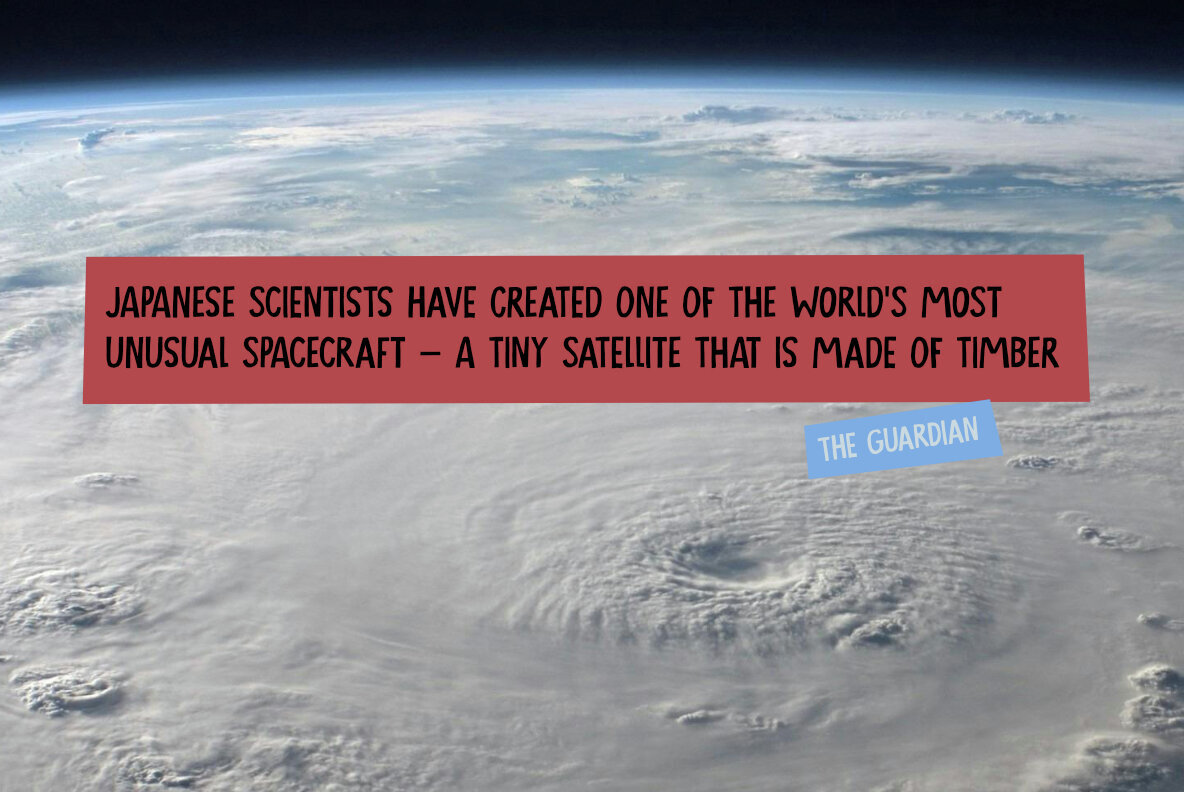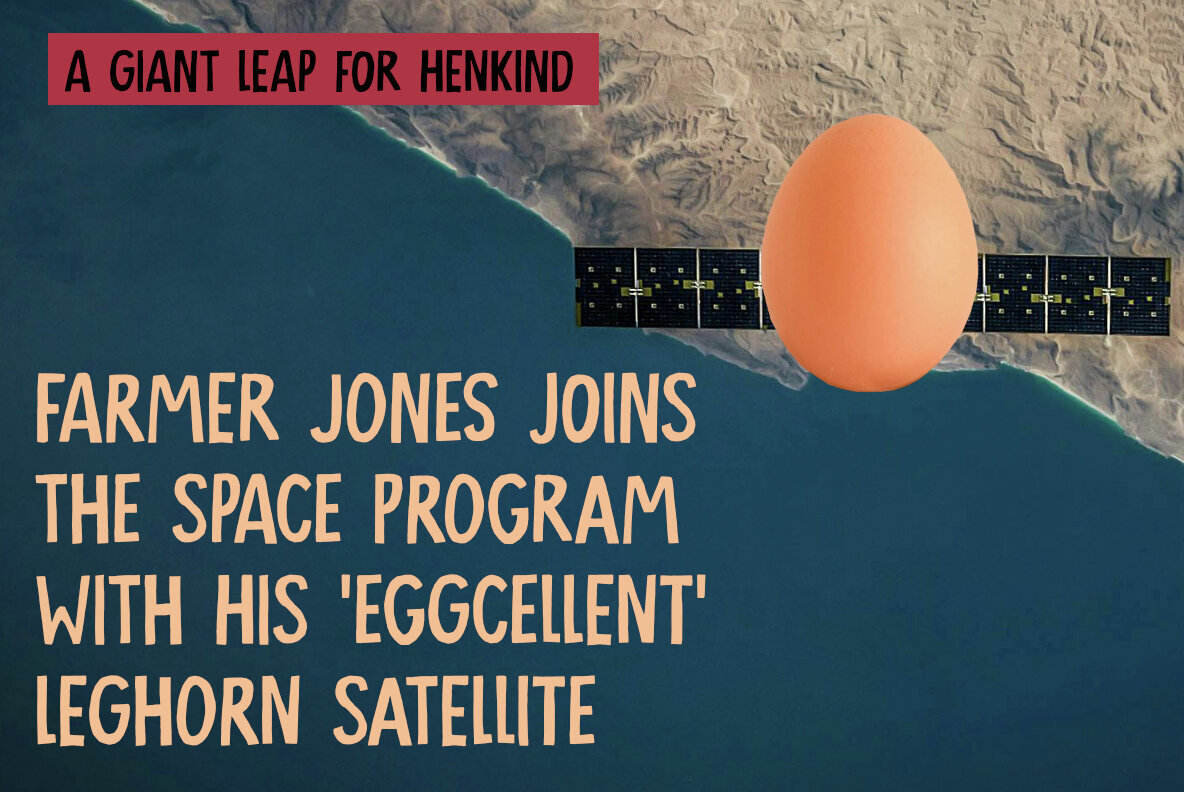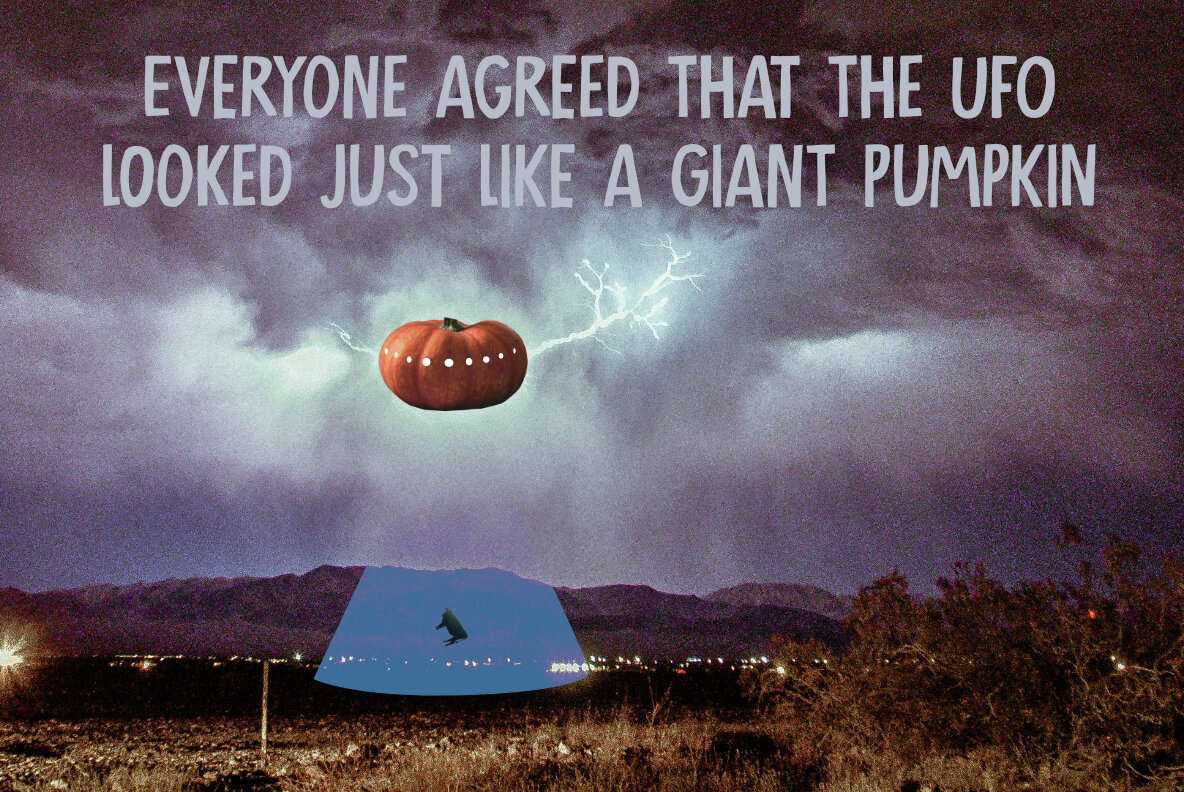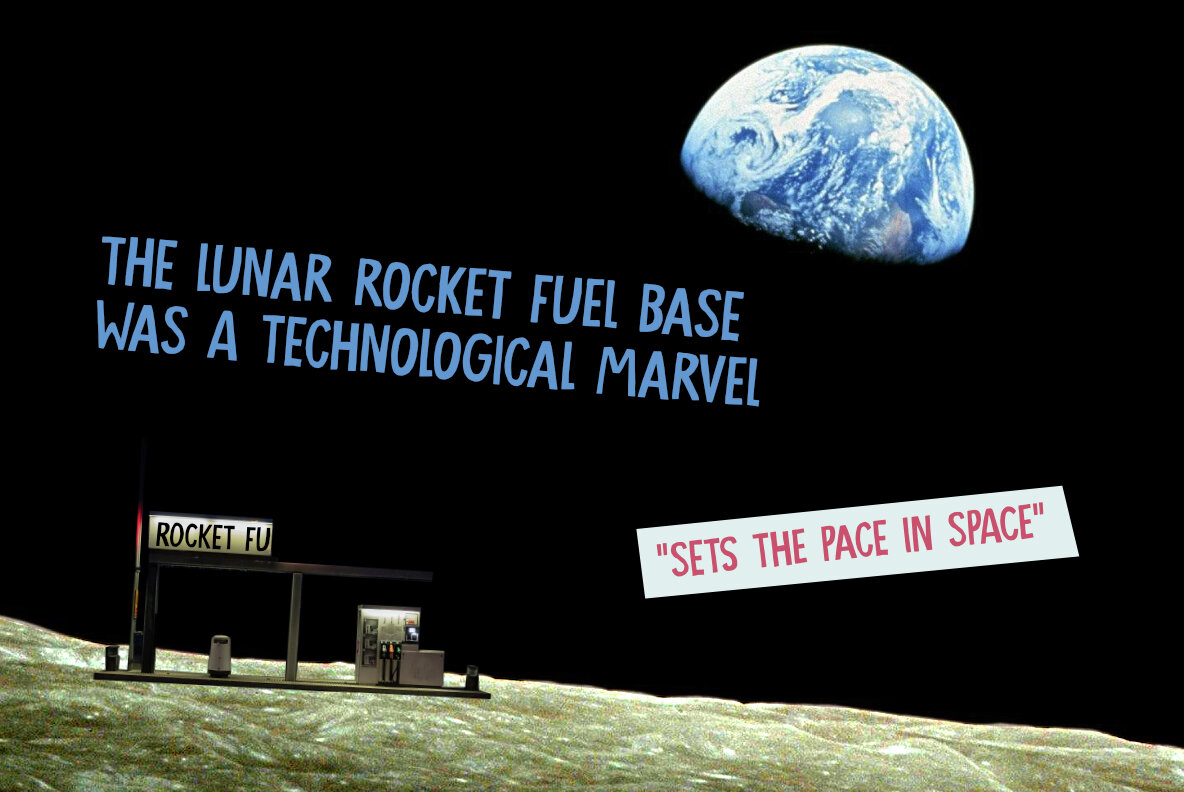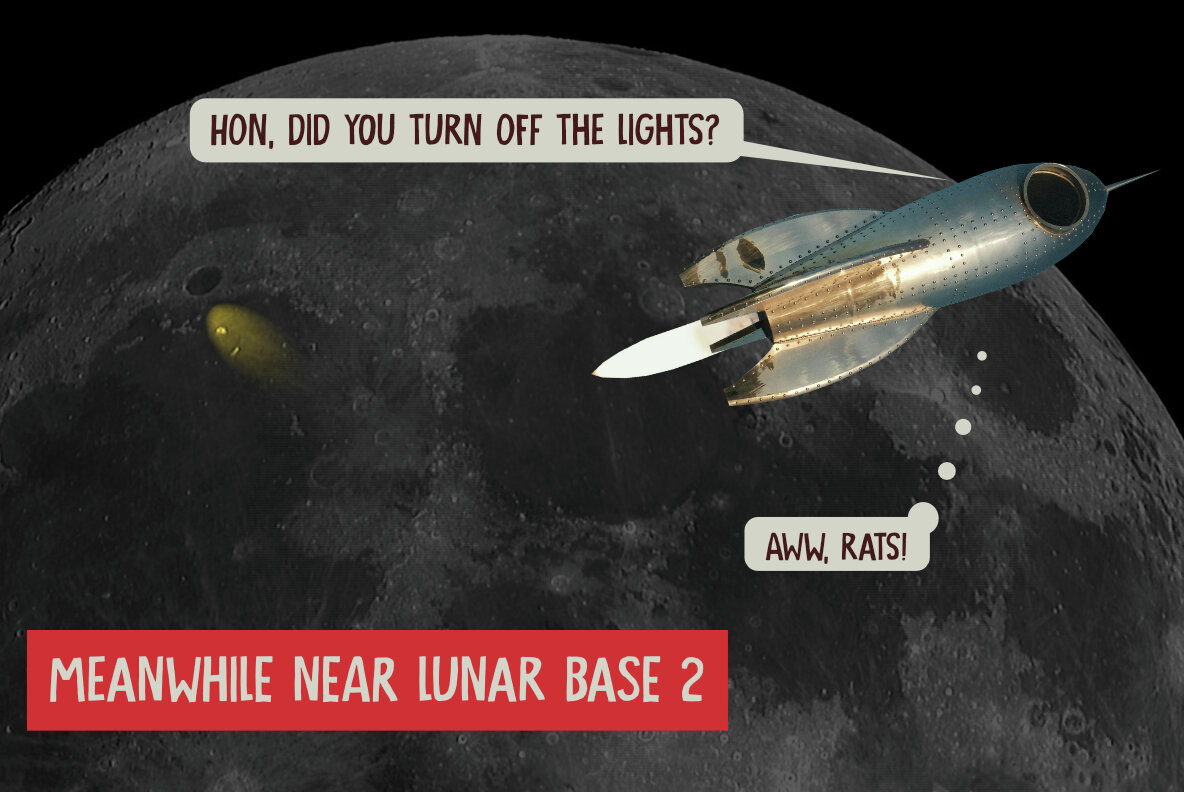
Plywood Satellite Font
Plywood Satellite Regular
Plywood Satellite Italic
Plywood Satellite is a handcrafted, all-caps font inspired by innovative concepts, such as wooden satellites. This font offers a rugged, organic feel, making it ideal for projects that require a touch of raw authenticity. Designed with versatility in mind, it includes extensive language support to ensure your message reaches a global audience.
The font features a unique set of alternates for lowercase glyphs, providing added flexibility and creativity in your designs. Perfect for headlines, posters, and branding, Plywood Satellite's distinct style will capture attention and convey a sense of individuality. Embrace the charm of its handcrafted look to create striking visuals with a natural edge.